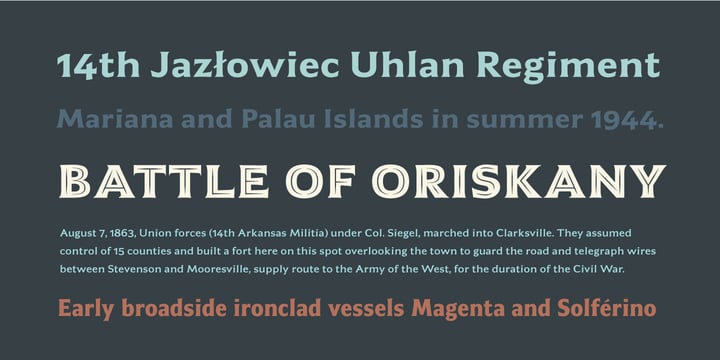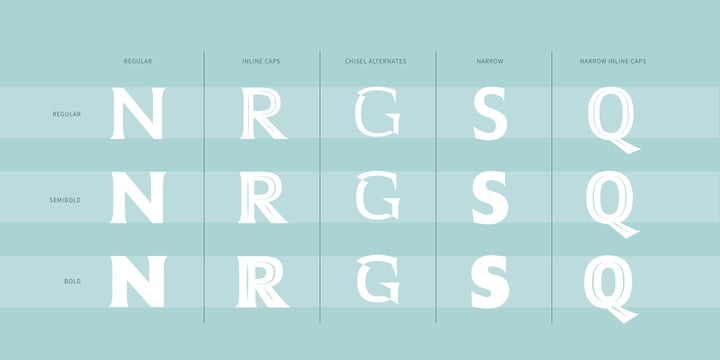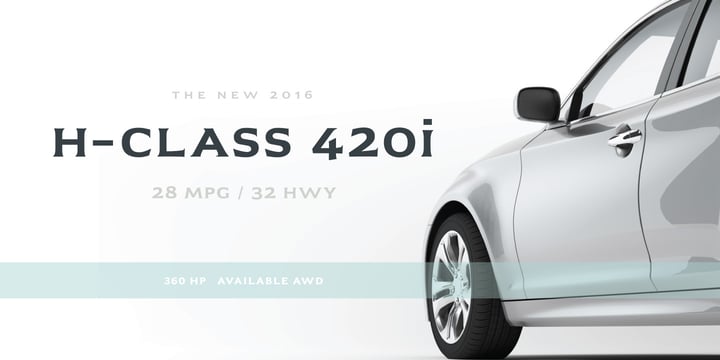
Emeritus
por District
La familia tipográfica Emeritus fue diseñada por Galen Lawson y publicada por District. Emeritus contiene 12 estilos y opciones de paquete familiar.
Emeritus is born from the carved letters found on buildings and monuments in Washington, DC. Muscular and low contrast but with assymetrical flared serifs that soften its stately presence. Small caps, inline caps, chiseled characters, and multiple weights and numerals offer an array of typographic voices. Notably academia, military, monumental, automotive, logos, signage, and so on.